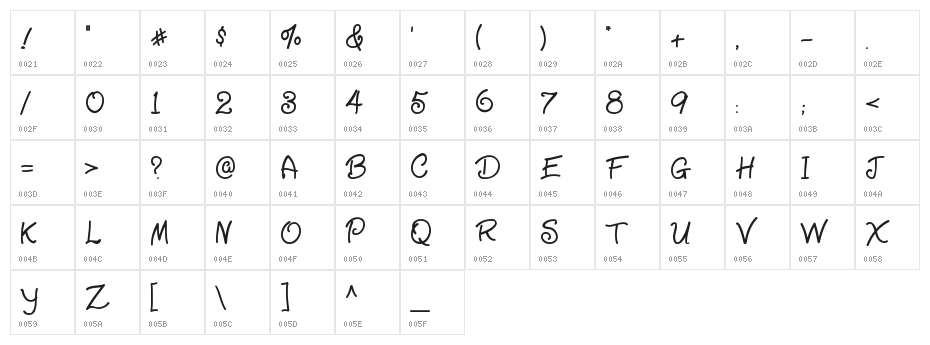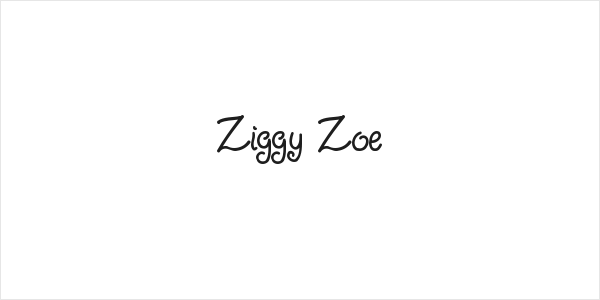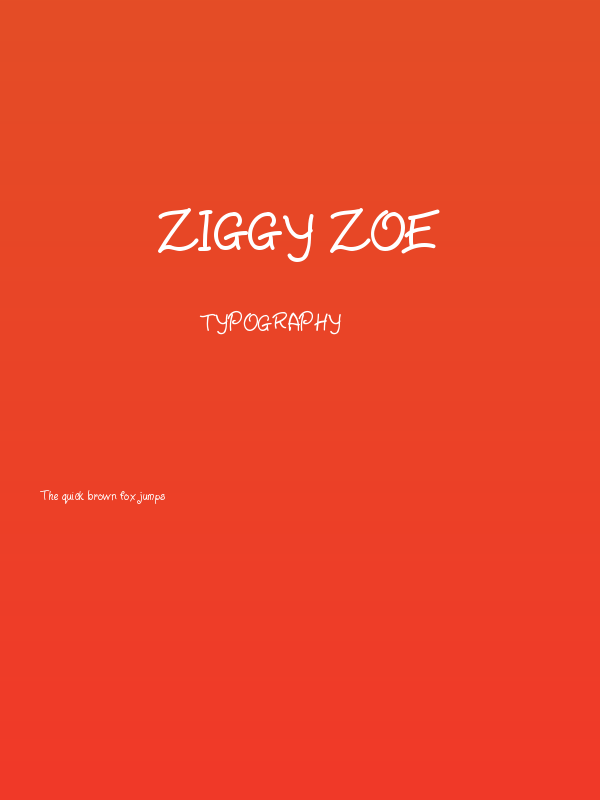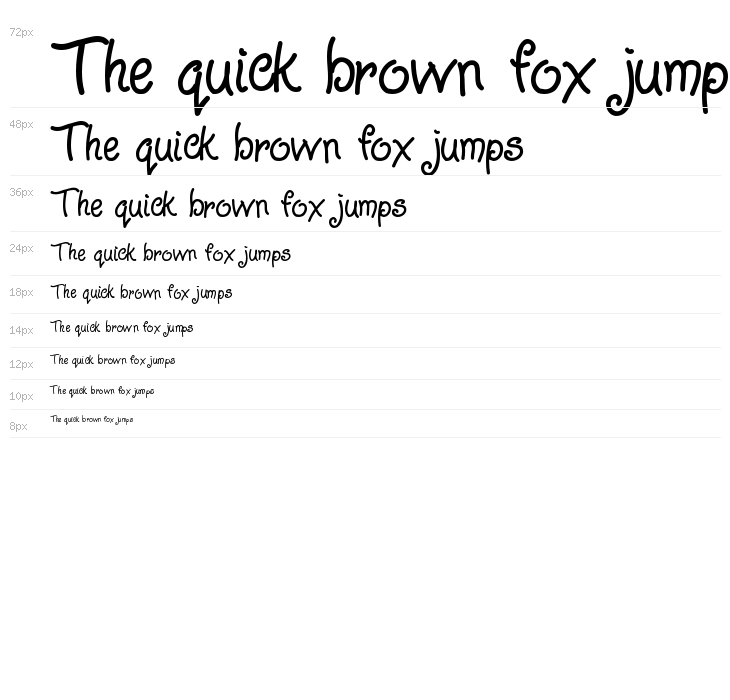
Ziggy Zoe Font
Ziggy Zoe Description
This playful and whimsical font features a handwritten style with a casual and friendly appearance. The letters are slightly slanted, giving a dynamic and lively feel. The strokes are smooth and rounded, with a consistent thickness that adds to the font's approachable nature. The uppercase and lowercase letters maintain a cohesive look, while the numerals and special characters complement the overall style. This font is perfect for projects that require a personal touch, such as invitations, greeting cards, or children's book covers.